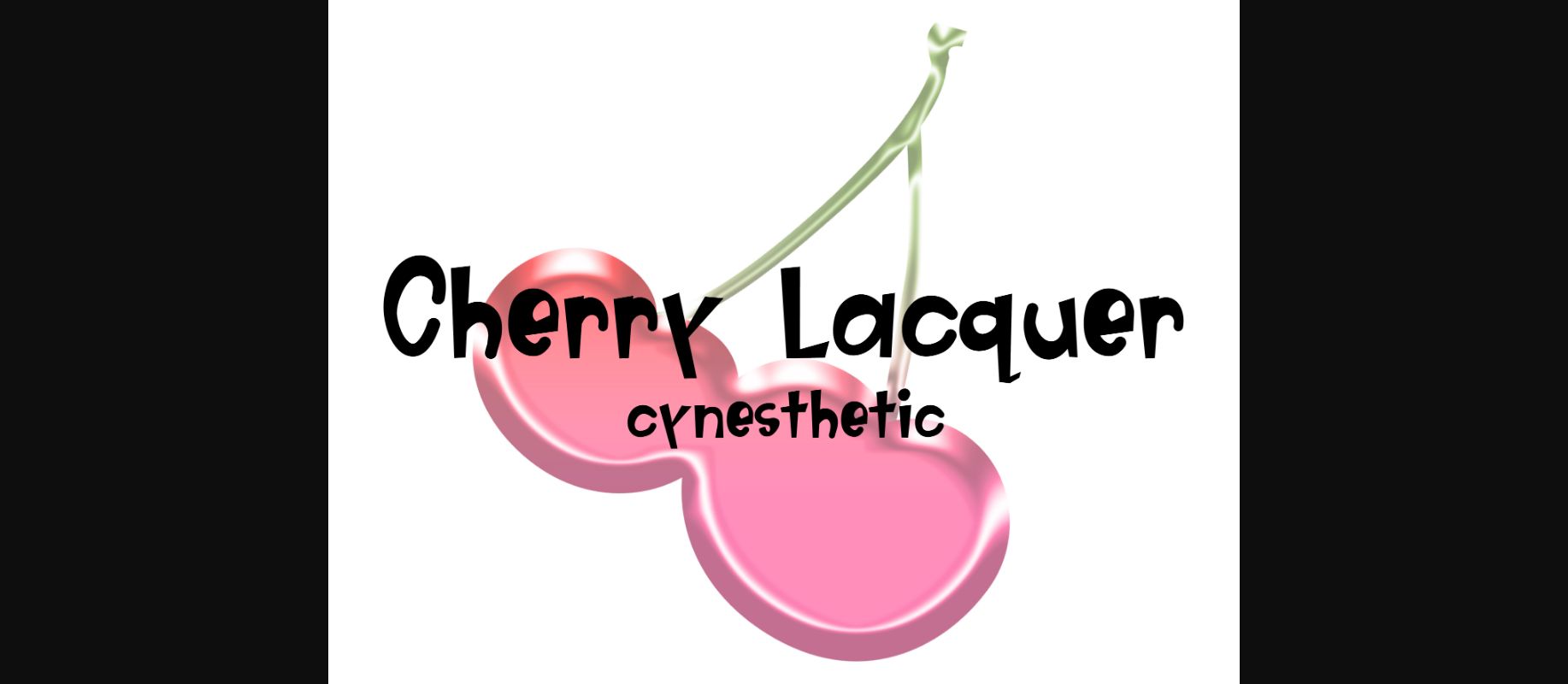
About Cherry Lacquer Font
Cherry Lacquer is a fun and bold font style, both decorative and sans serif giving it an attention grabbing appeal. This font can be used in a large range of creative projects.